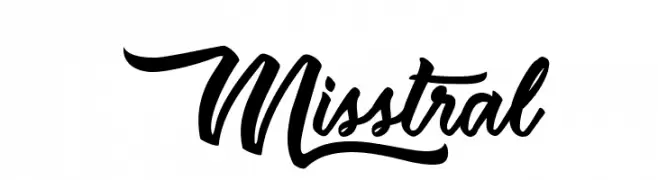
A bold, cursive font with elegant, flowing strokes and high contrast.
A dynamic and elegant script font with fluid, connected letterforms and a modern calligraphic style.
A bold, expressive script font with flowing, interconnected characters.